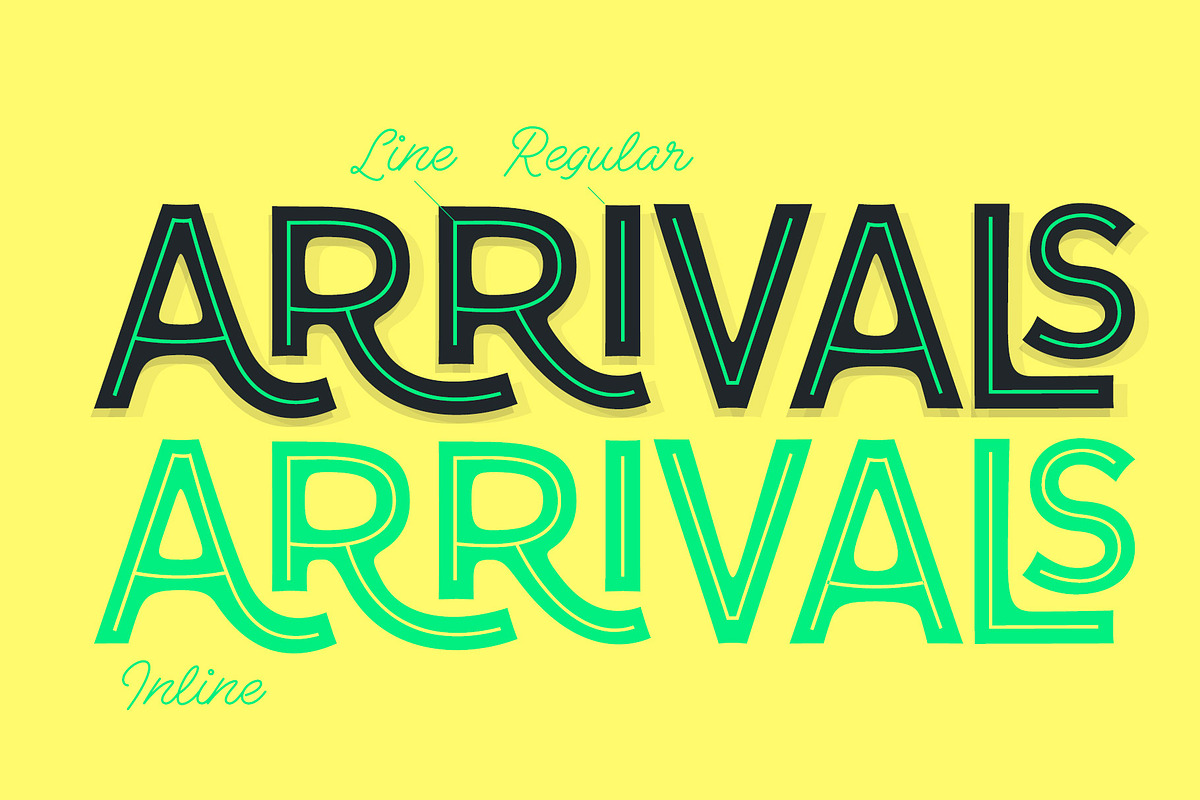
Fruitos
Fruitos is funky font family with loads of interlocking ligatures. Fruitos is great for packaging, posters or any display use.
Fruitos is divided into two families: Fruitos R (regular) is bouncy and has wider “serifs” whereas Fruitos S (straight) makes clear blocks and has straight forms. Both versions have a standard fill version, an Inline version and a Line version that can be used together with the standard version for colourful inline.
Fruitos also has an underlined Titling Alternates for every basic character. Try Titling Alternates to spice up your words!